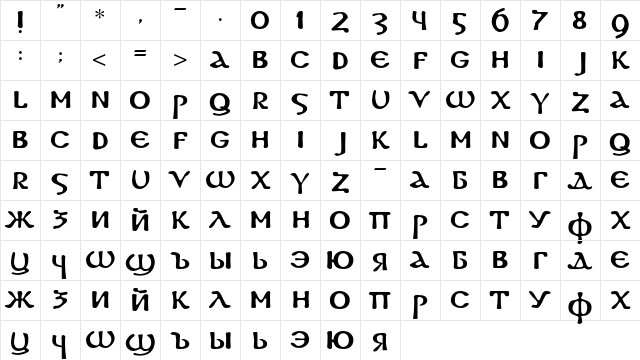
DS CopticC Regular
Design Context for DS CopticC Typeface
DS CopticC takes a measured approach to typography — its balanced proportions and neutral character make it a reliable workhorse for both digital and print work.